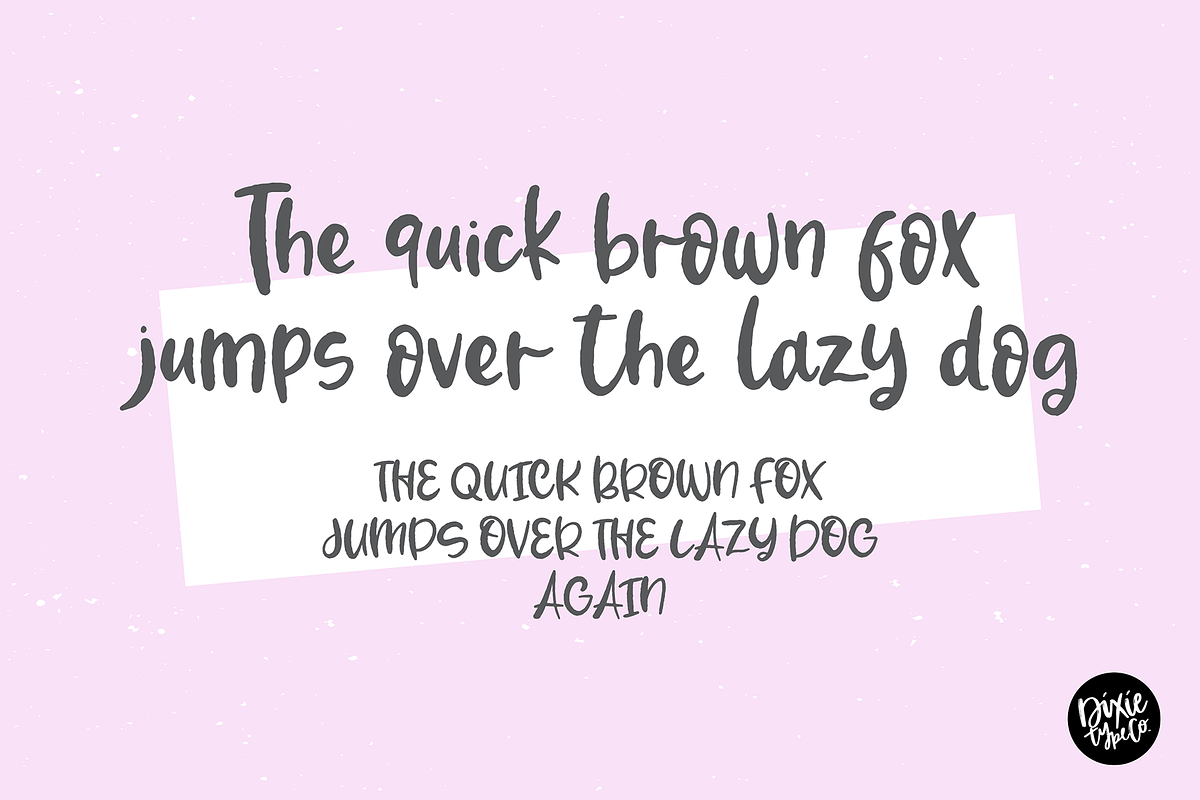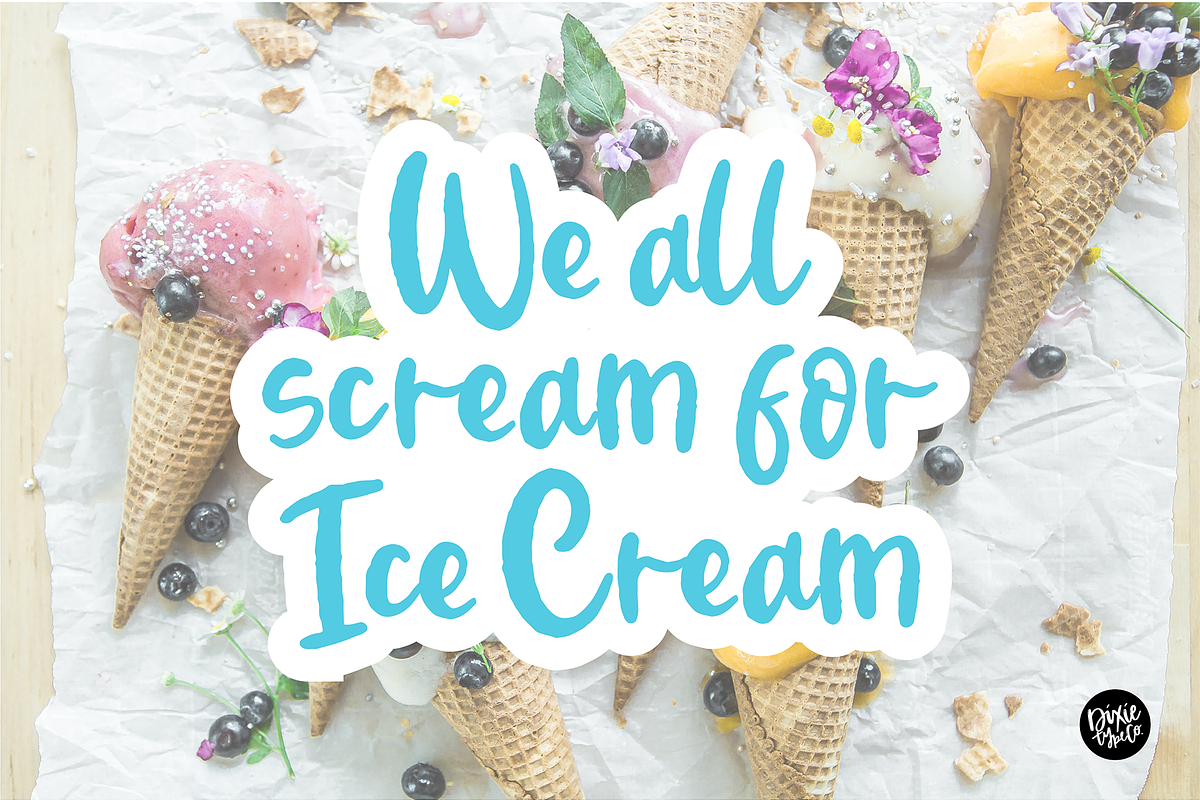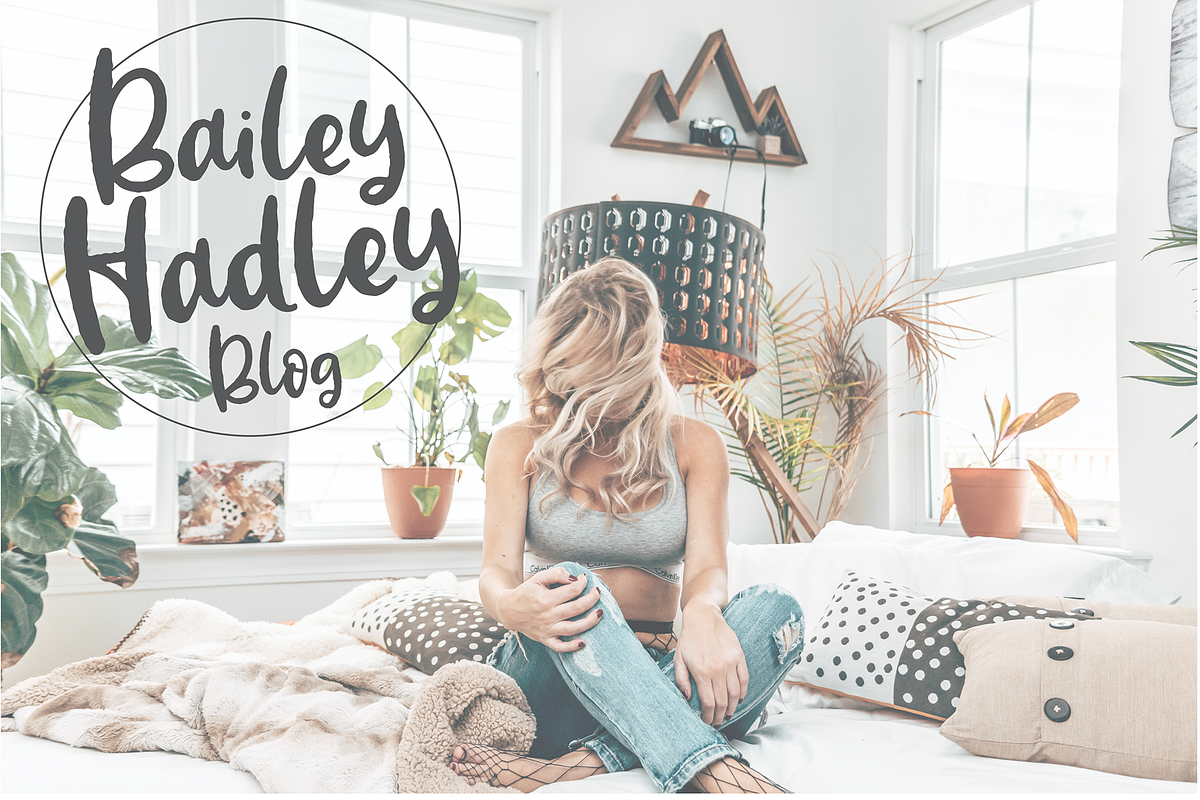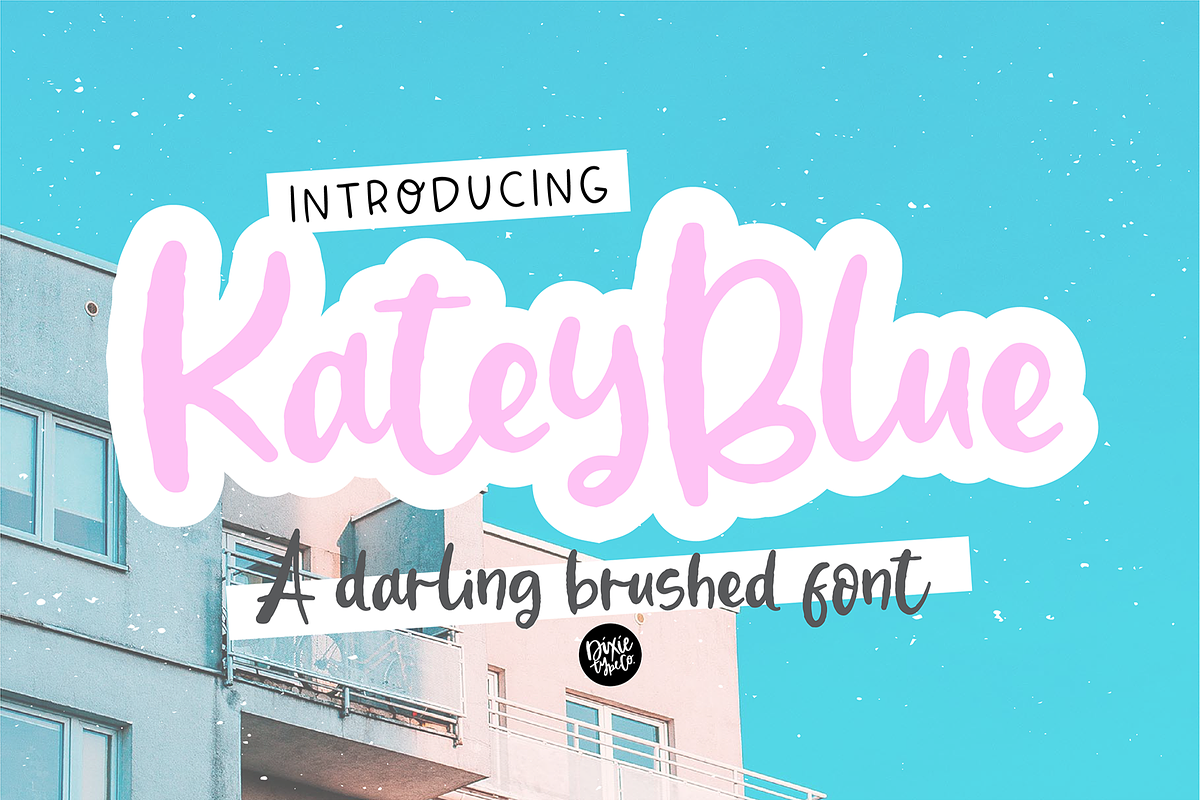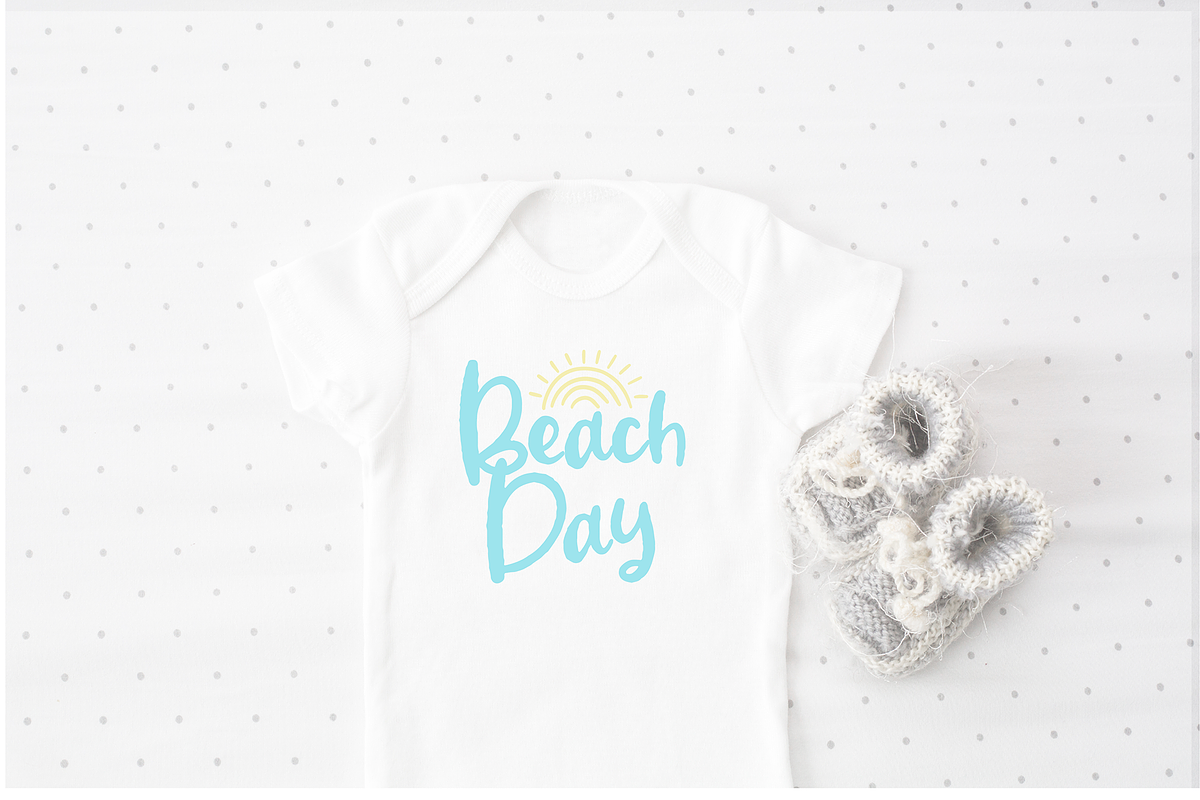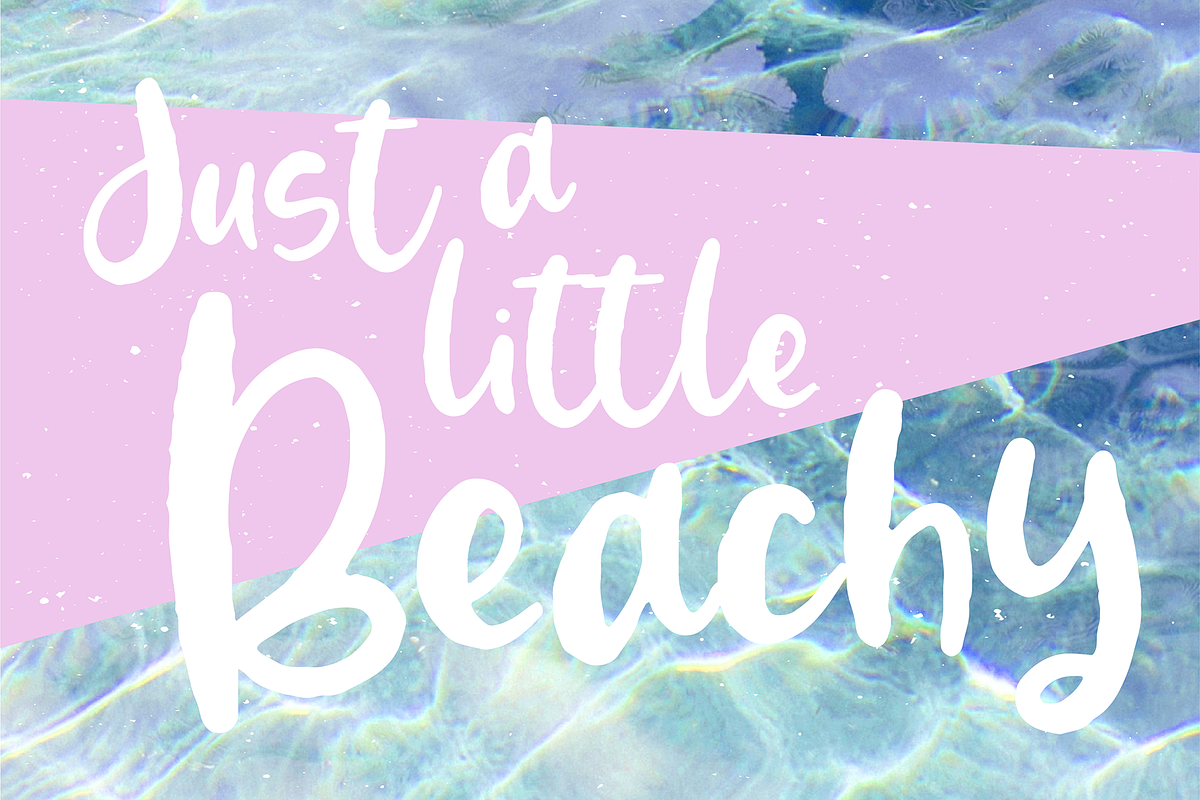
KATEY BLUE a Darling Brushed Font
{ A typographic font hand-lettered with love by Dixie Type Co. }
Katey Blue is casual brush sans serif font. This font is trendy and girly! Use it on craft projects, party invitations, business cards, party invitations, signs, etc.!
Font includes: Upper and lowercase glyphs Numbers Punctuation